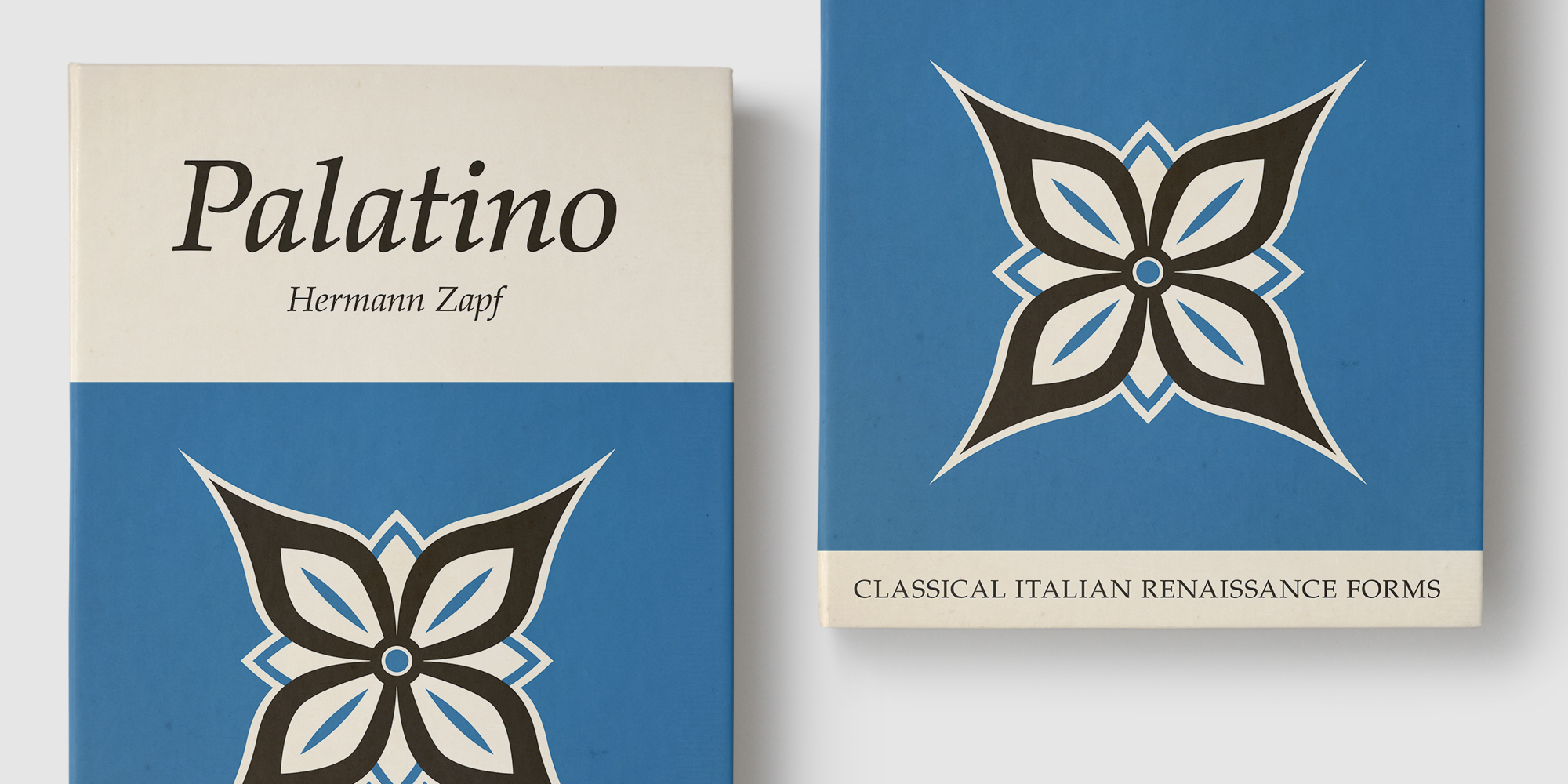
Palatino Font is ideal for prestigious design applications including book publishing, academic journals, literary magazines, fine art catalogs, museum exhibitions, classical music programs, luxury brand communications, and scholarly publications. This distinguished serif typeface delivers exceptional readability and Renaissance-inspired elegance for projects that demand cultural sophistication and intellectual authority.
What makes Palatino Font exciting is its masterful blend of Renaissance calligraphy traditions with modern typographic excellence that creates timeless elegance and scholarly distinction. The font features humanist letterforms with classical proportions and refined details that honor historical typography while ensuring contemporary functionality. Its cultural heritage embodies artistic sophistication and intellectual prestige that appeals to educated audiences.
The Palatino Font family includes comprehensive classical variations such as Roman, Italic, Bold, and Small Caps styles that maintain the font's Renaissance character throughout different applications. These distinguished options provide complete typographic coverage for complex editorial projects while preserving the cultural authority and artistic elegance that defines this legendary typeface.
This legendary serif typeface represents centuries of typographic excellence and cultural refinement in design history. Publishers and cultural institutions choose Palatino Font Free Download for its unmatched combination of readability and classical beauty. The font's Renaissance heritage makes it perfect for art museums, classical music organizations, and prestigious publications that require both intellectual credibility and artistic distinction. Its timeless character ensures lasting appeal while maintaining the cultural sophistication that defines exceptional scholarly design work.